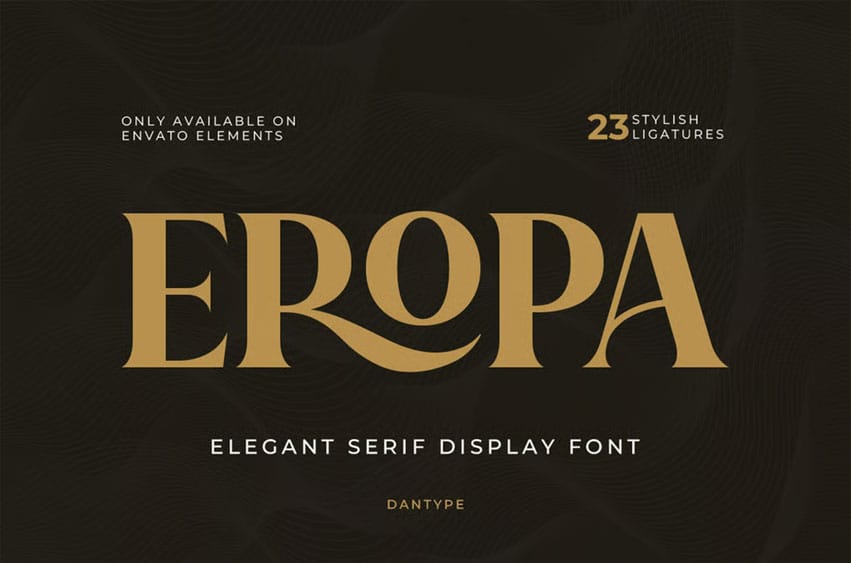
Eropa FontĀ is an elegant serif display font crafted for timeless sophistication. Its strong contrast, flowing ligatures, and graceful alternates make it perfect for luxury branding, editorial design, and high-end packaging.
The harmonious balance between classic serif structure and modern flair gives Eropa a captivating visual rhythm.
- 23 Stylish Ligatures & Stylistic Alternates